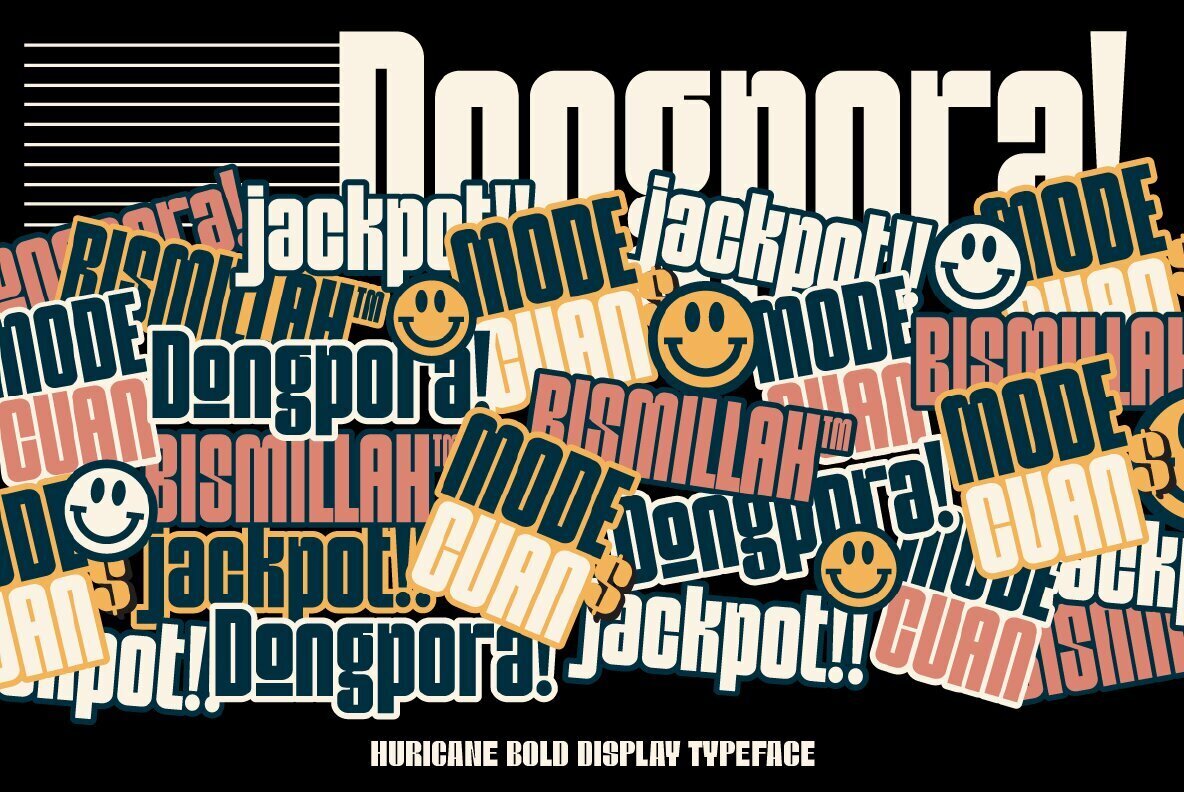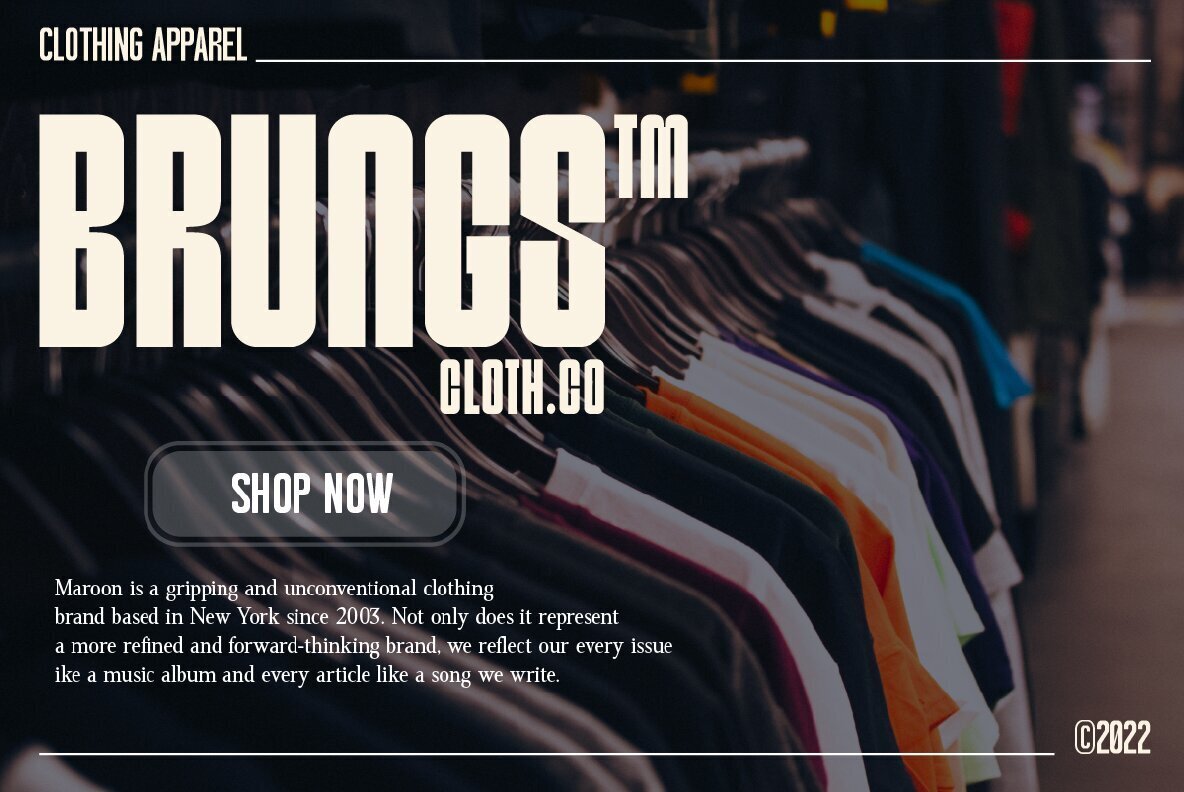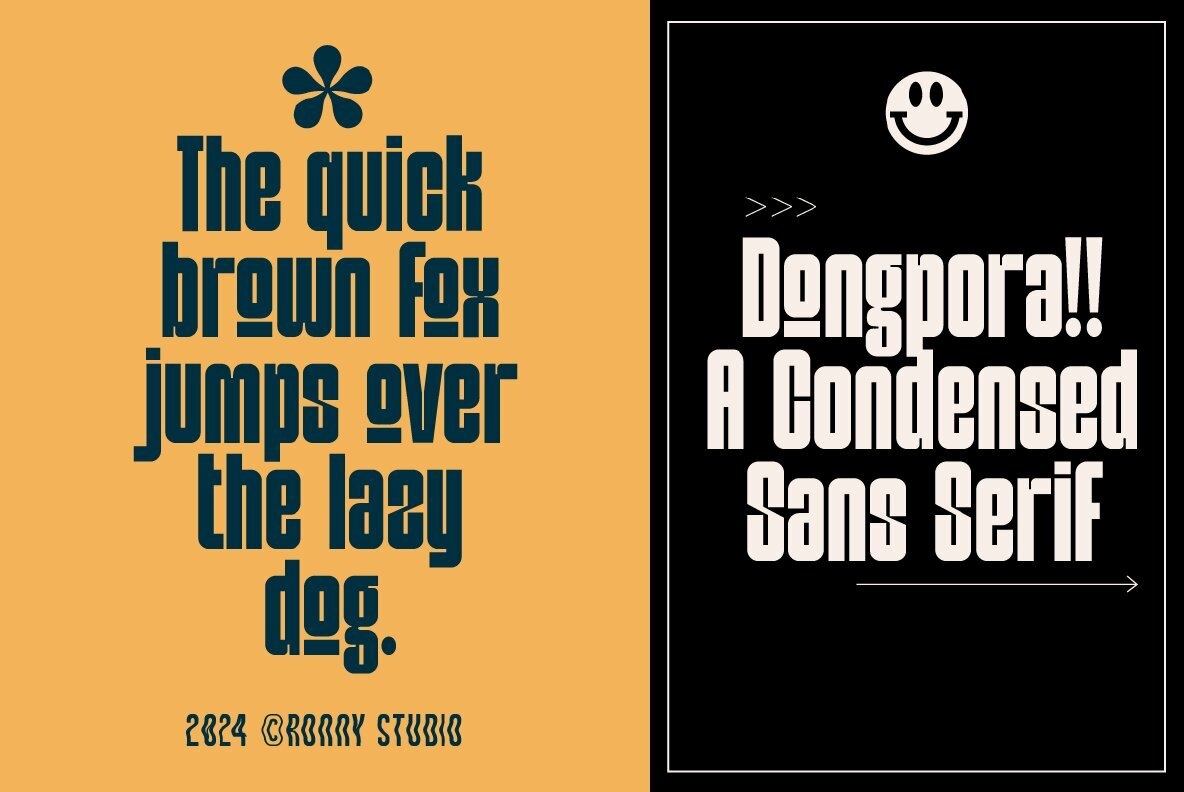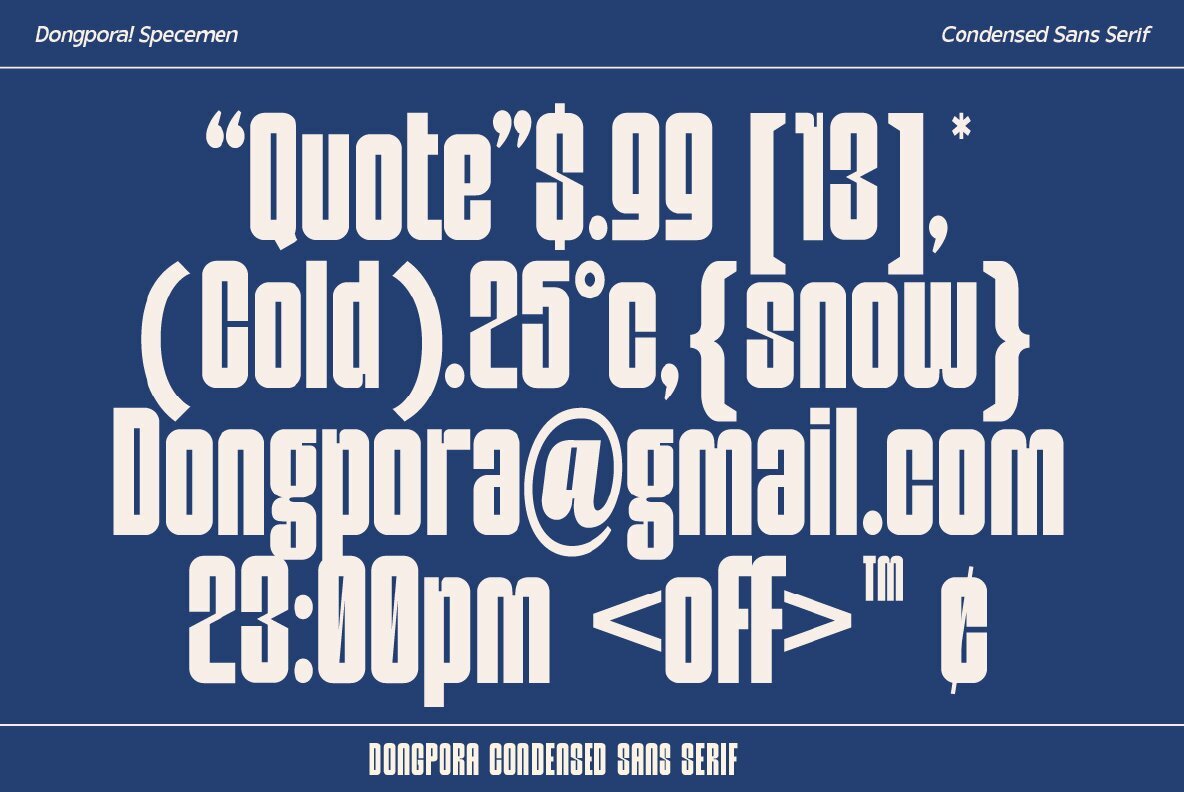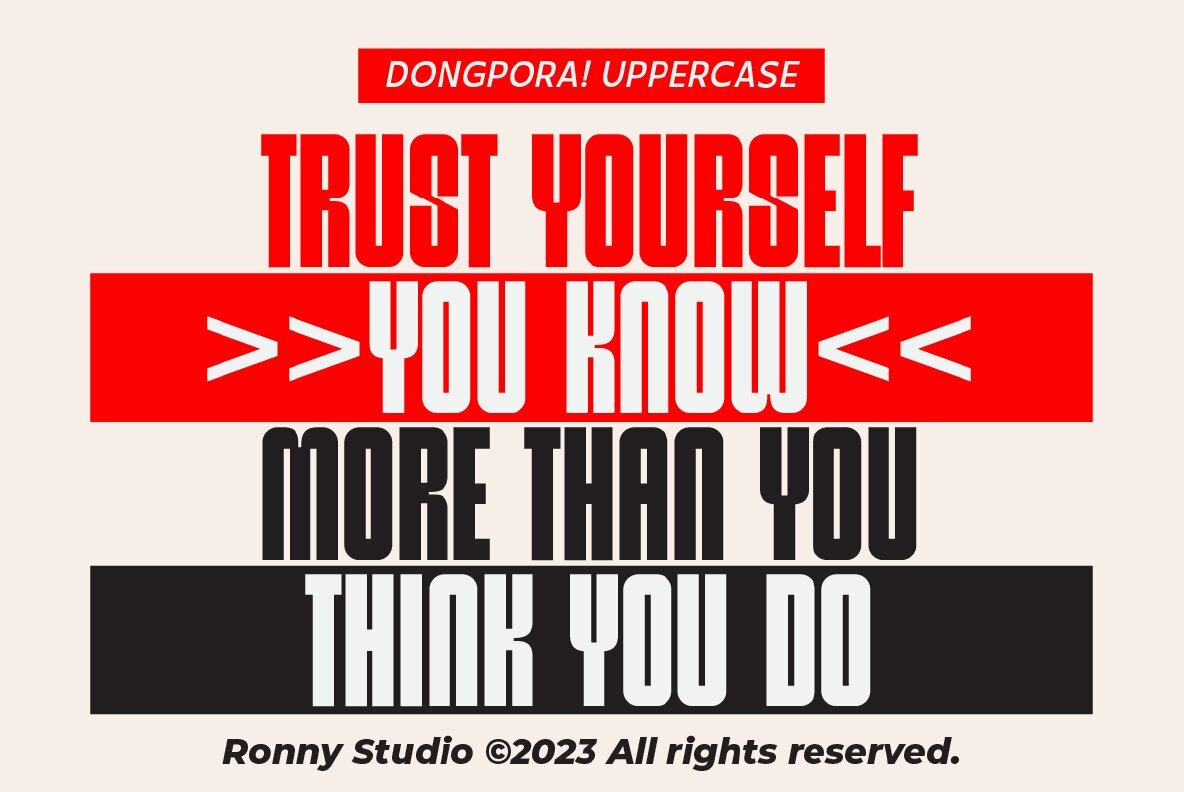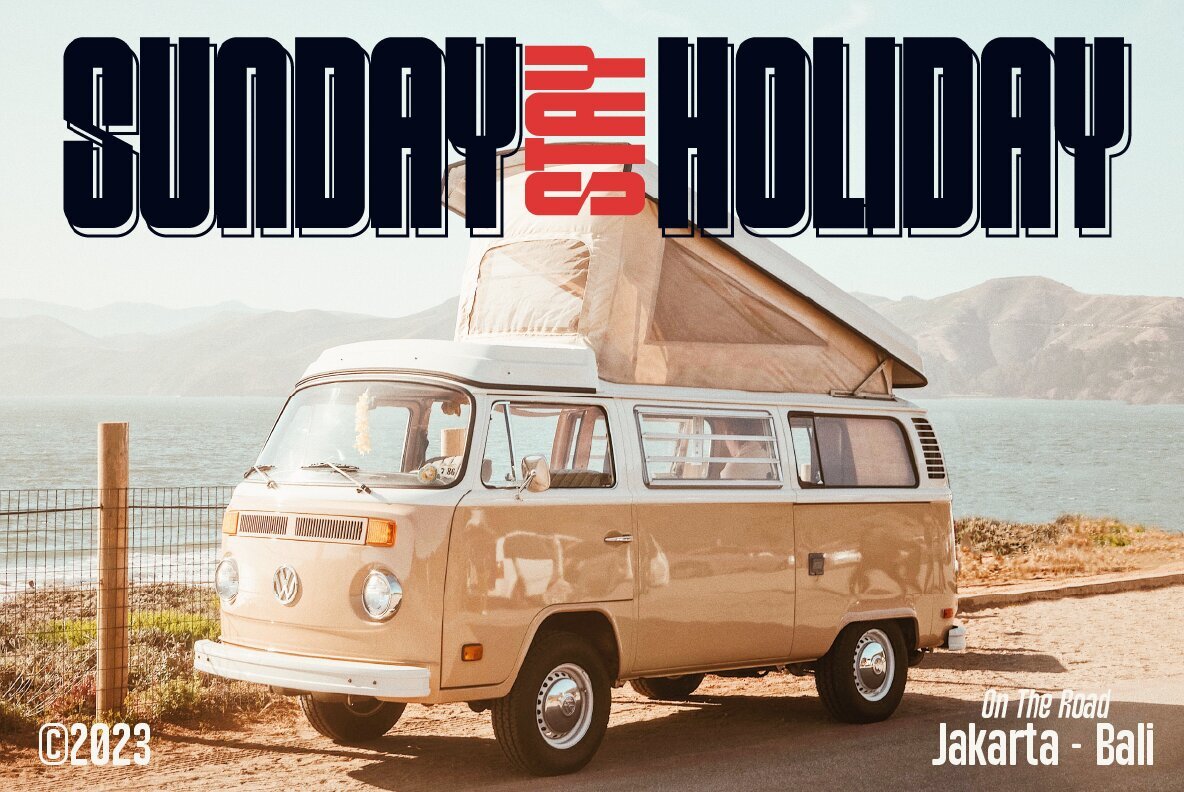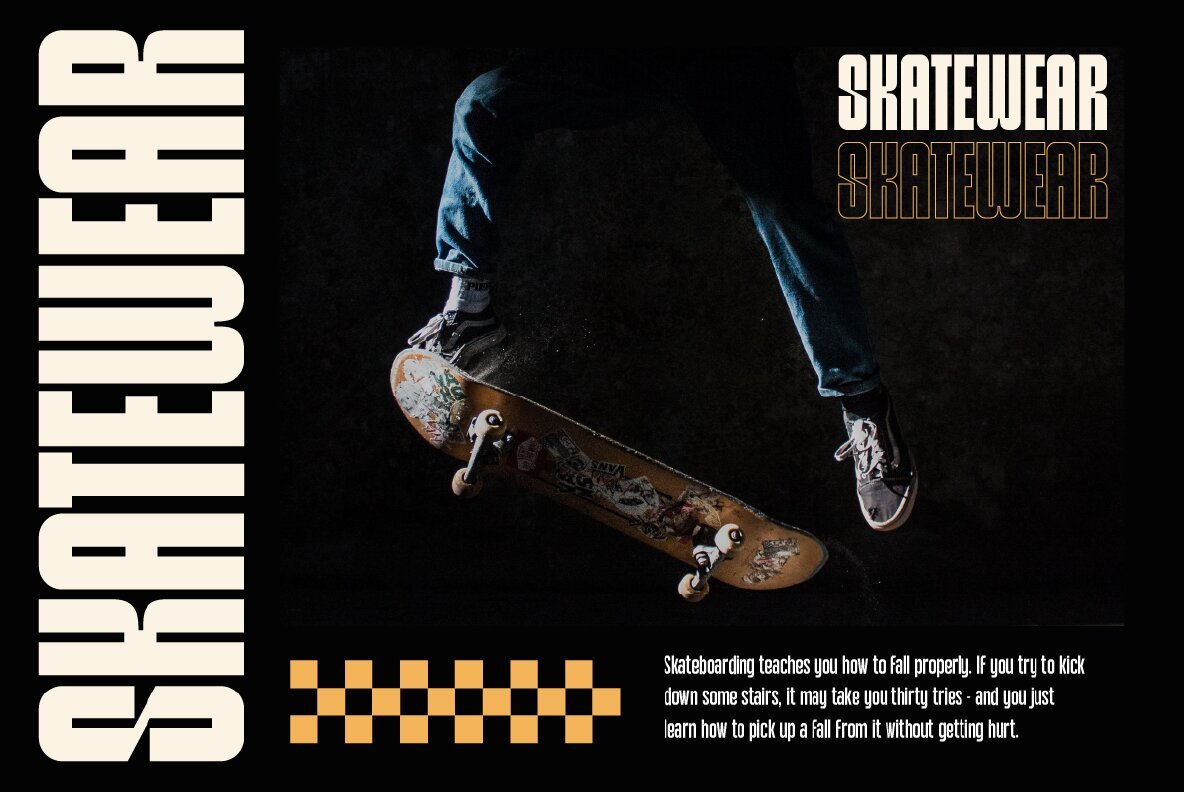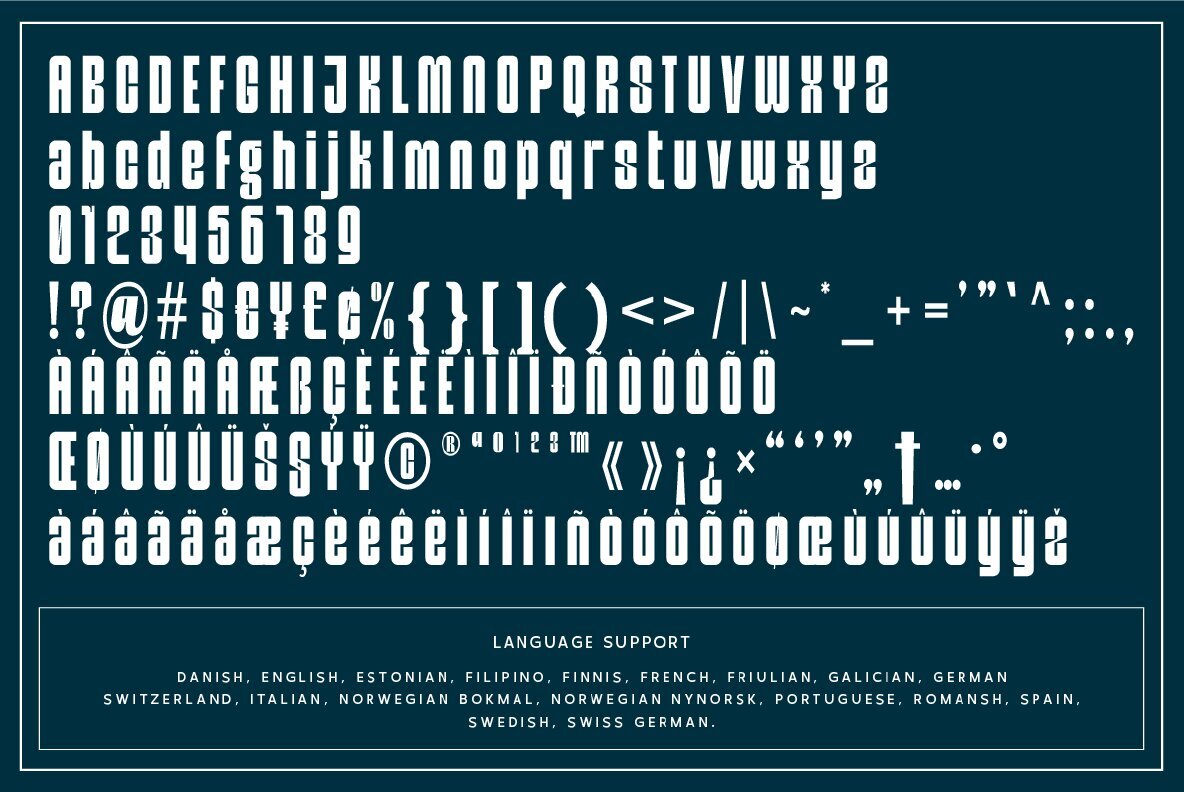
Dongpora Font
Dongpora Regular
Dongpora is a type of thick bold font which has a different character from other bold fonts, Dongpora has a strong but soft character, with an elegant and fresh theme, Dongpora is able to answer your current needs who are designing something unique. Big. It has superior weight in logos, posters, social media, magazine headlines, clothing, large print formats - and wherever you want to see it. Inspired by popular design styles, bring your imagination to life with Dongpora Font.